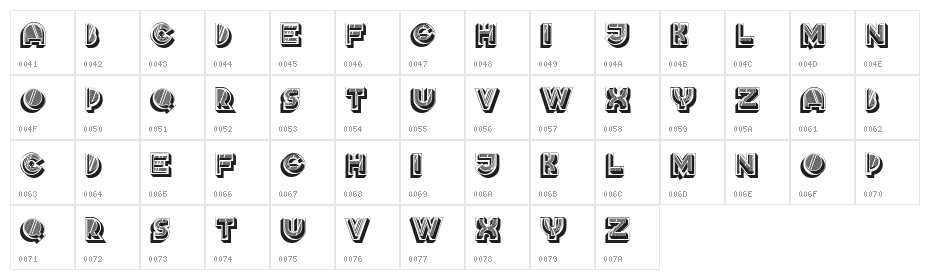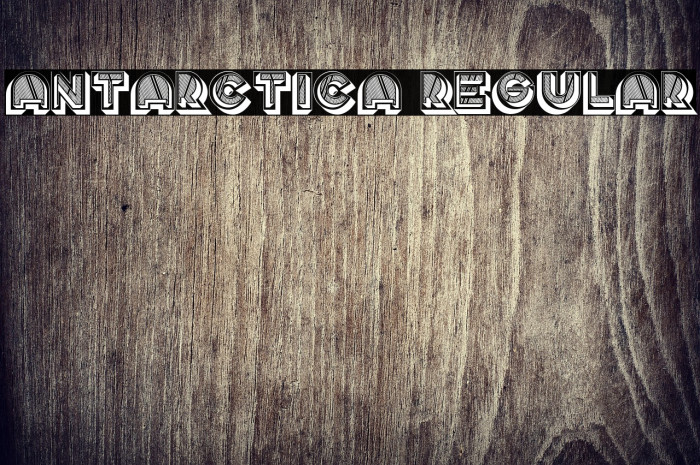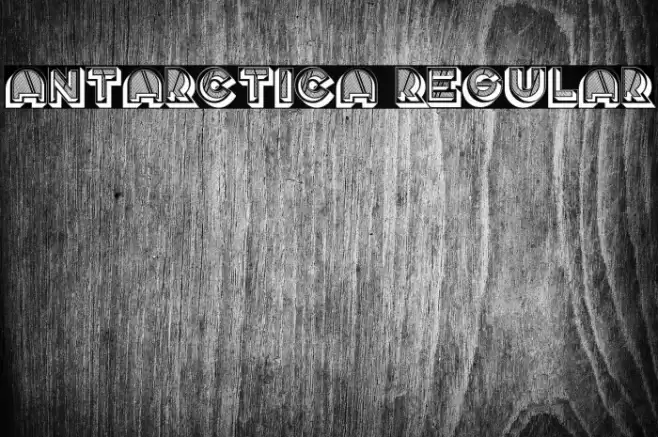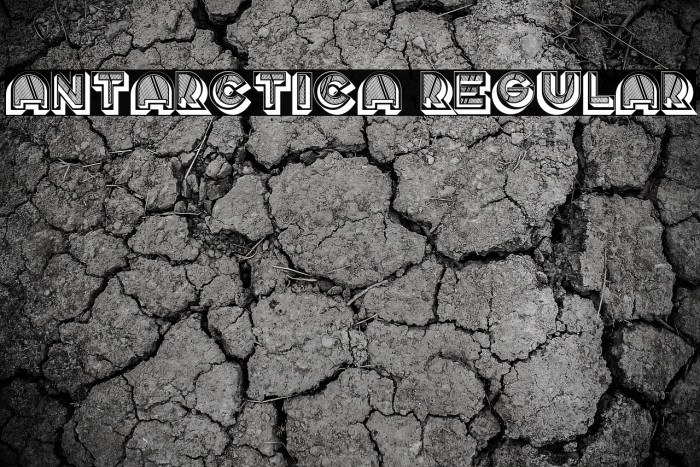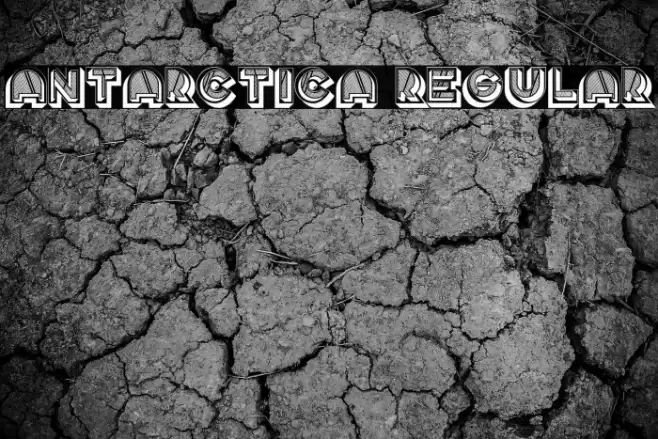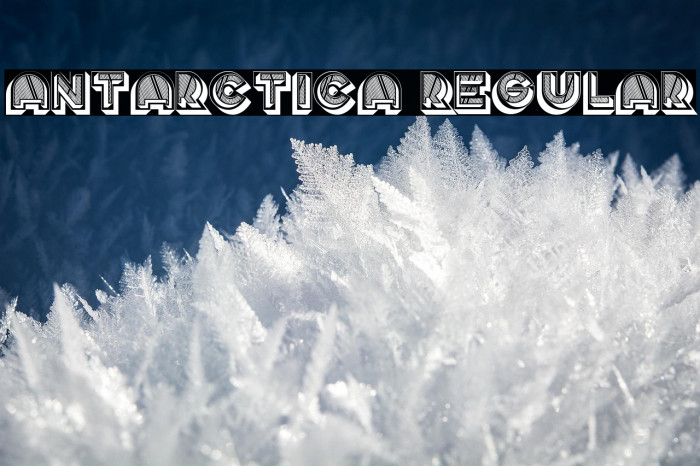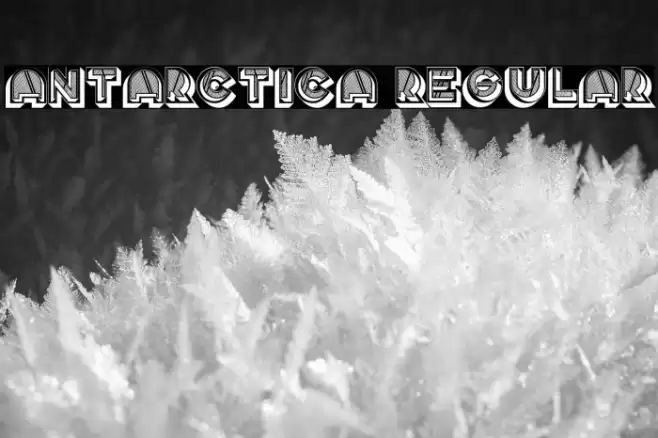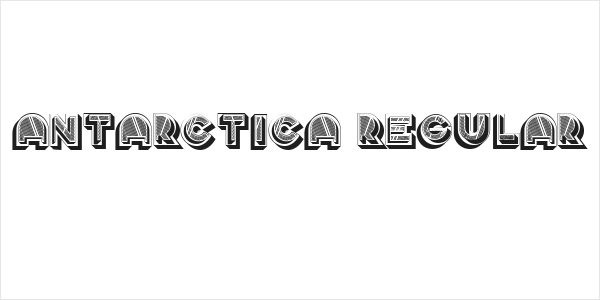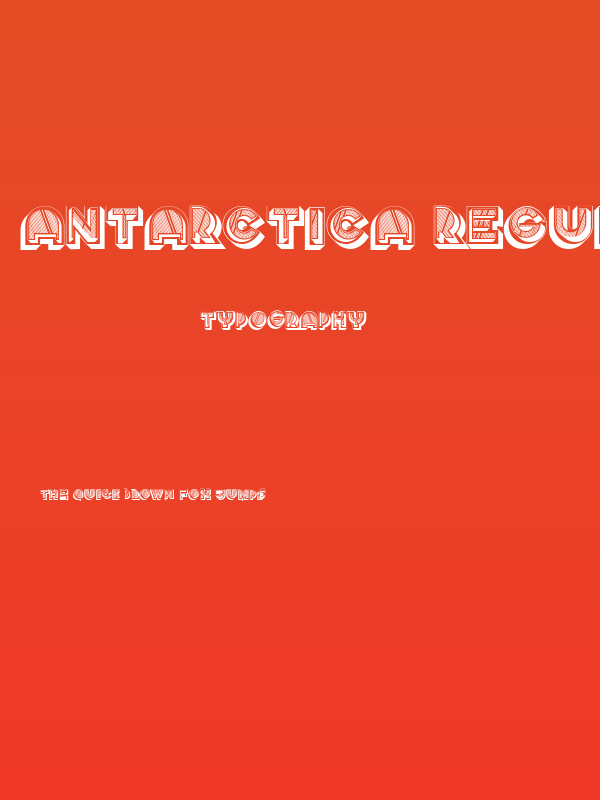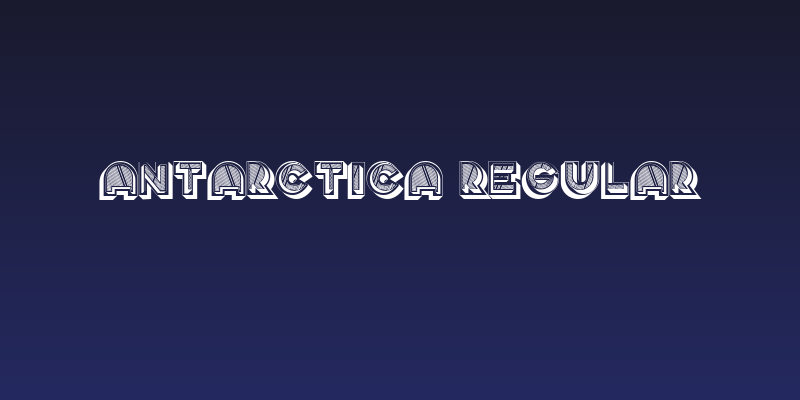
Antarctica Regular Font
Antarctica Regular Description
This font features a bold, decorative style with a three-dimensional effect. Each character is outlined with a thick black border, creating a striking contrast against the white interior. The interior of the letters is filled with intricate line patterns, adding depth and texture. The font has a playful and dynamic appearance, making it suitable for eye-catching designs. The uppercase letters are uniform in height, and the overall design is consistent across the alphabet. The font's unique style makes it ideal for projects that require a bold and artistic touch.